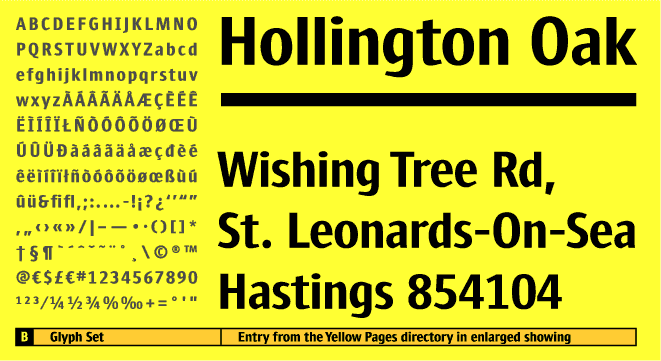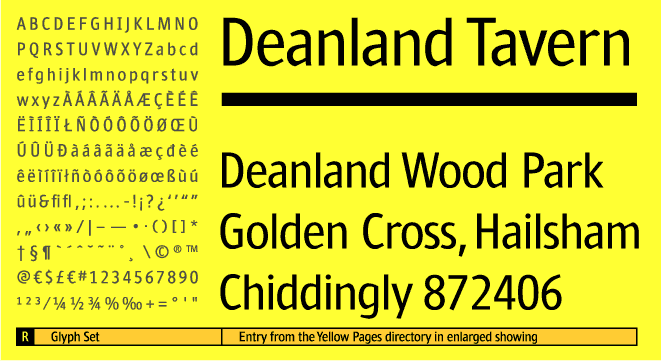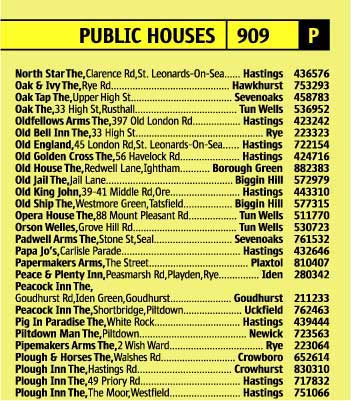
An exclusive typeface for the Yellow Pages directory of British Telecommunications Plc.
Commissioned work for Johnson Banks, London at The Foundry, London.
This sanserif typeface, distinguished by simplicity of design and condensed letterforms, is extremely economic with space*. It is clear and highly readable at a very small size of 5 points due to its very large x-height.
To undergo inktraps by drawing deep cut-ins where vertical and horizontal strokes are joining, sharp horizontals were designed to gain more white space around the joining strokes. This treatment is essential of the design and keeps the letters very open at the same time.
A functional design that embodies a lucky combination of legibility and technical restraints.
* As a side effect the Yellow typeface saved the printers tons of paper.
Yellow wurde im Auftrag für Johnson Banks, London,
im Büro The Foundry, London,
exclusiv für die Yellow Pages der British Telecommunications Plc entworfen
Yellow wurde als eine klare Serifenlose konzipiert mit schmalen Buchstabenformen und einer sehr hohen Mittellänge der Kleinbuchstaben, um bei einer Schriftgröße von 5 Punkt gut lesbar zu bleiben.
Um tiefe Einstiche, wie bei Schriften aus dem Fotosatz üblich, an den Kreuzungspunkten von Horizontalen und Vertikalen zu vermeiden, wurden scharfe und eher flache Einschnitte an diesen Stellen gezeichnet. Somit konnten dort große Weißräume geschaffen werden, die ein Verflecken verhindern.
Dies führte auch zu sehr offenen Formen; die Einkerbungen wirken der Vertikalität, bedingt durch die schmalen Formen und der hohen Mittellänge, entgegen.